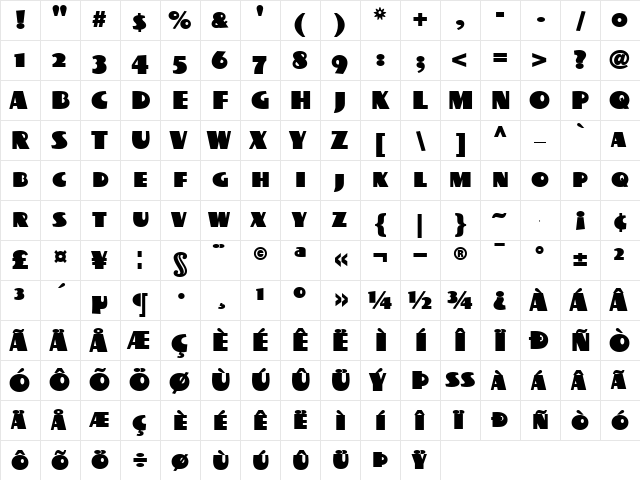
BottleKaps SC Regular Regular
Design Context for BottleKaps SC Regular Typeface
BottleKaps SC Regular is a composed and adaptable typeface that performs quietly and consistently across a wide range of design contexts.
Pro Tip: Use BottleKaps SC Regular in both headline and body roles to test its range before committing to a single application.